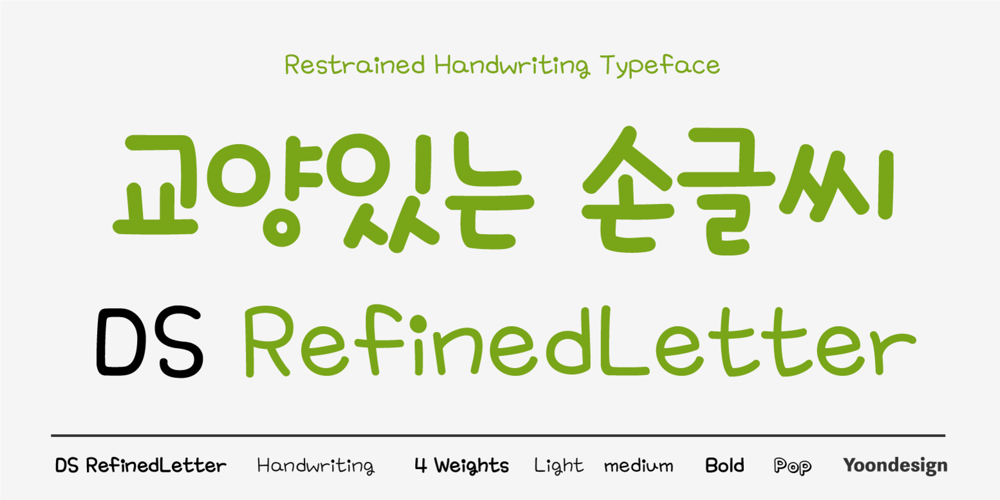
DS RefinedLetter
DS RefinedLetter font
DS RefinedLetter Font Family was designed by Yoon Design Team and published by Yoon Design. DS RefinedLetter contains 3 styles and family package options. DS RefinedLetter Family is a confident hand-lettered script without self-conscious style. This is a friendly, neat, print-style font that lends itself to casual messages, greeting cards, post its, journals, you name it! This font family has 4 style.